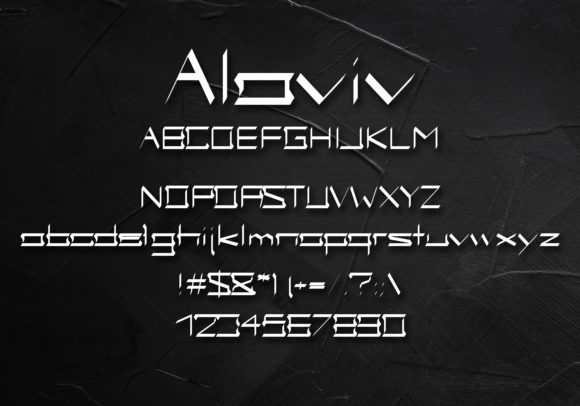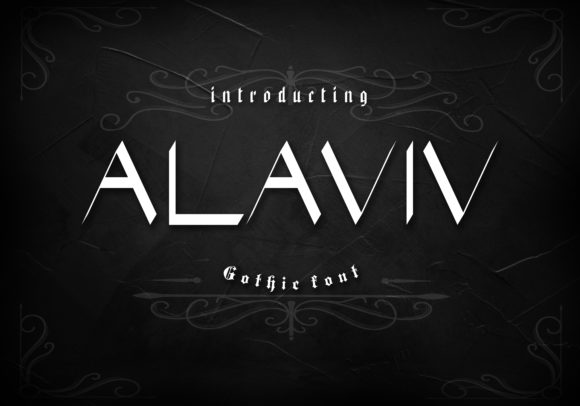
Introducing Alaviv Font: Elevate Your Designs with a Modern, Elegant Twist
In the realm of typography, fonts play a pivotal role in defining the aesthetic and tone of any design project. Whether you’re working on a branding campaign, crafting a unique logo, or simply experimenting with creative typography, selecting the right font can make all the difference. This is where Alaviv Font comes into play—a modern, all-caps display font designed to infuse contemporary elegance into your designs.
What is Alaviv Font?
Alaviv is a thoughtfully crafted, all-caps display font tailored to meet the demands of modern design styles and applications. Its sleek lines, balanced proportions, and clean aesthetic make it an ideal choice for designers looking to impart a sense of sophistication and modernity to their work. The font’s versatility allows it to be used across various platforms, from digital interfaces to print materials, ensuring that your design maintains its elegance and coherence across different mediums.
Key Features of Alaviv Font
- Modern Aesthetic: Alaviv boasts a contemporary look that aligns with current design trends, making it perfect for projects that require a fresh and modern feel.
- All-Caps Design: The font’s all-caps design lends a sense of grandeur and formality, ideal for headings, titles, and any design element where you want to command attention.
- Elegant and Sophisticated: With its clean lines and well-balanced structure, Alaviv exudes elegance, making it suitable for luxury brands, high-end products, and sophisticated design projects.
- Versatile: Whether you’re designing for digital screens or print, Alaviv’s clarity and readability ensure it performs well across various applications.
Who Can Benefit from Alaviv Font?
Alaviv Font is a valuable asset for a wide range of designers and crafters, including:
- Graphic Designers: Looking for a modern, impactful font to feature in branding, advertising, and promotional materials.
- UI/UX Designers: Seeking typography that offers both aesthetic appeal and functional clarity for websites, apps, and digital interfaces.
- Logotype and Branding Specialists: In need of distinctive, memorable fonts that can help establish a strong brand identity.
- Crafters and Makers: Creating unique products, packaging, or merchandise that requires a touch of modern elegance.
How to Use Alaviv Font Effectively
To truly leverage the potential of Alaviv Font, consider the following tips:
- Pair with Complementary Fonts: Combine Alaviv with simpler, serif or sans-serif fonts for body text to create visual hierarchy and contrast.
- Experiment with Colors: While Alaviv looks stunning in bold colors, don’t hesitate to experiment with subtle gradients or metallic effects to enhance its modern appeal.
- Adjust Letter Spacing: For optimal readability, especially in longer titles or headings, tweak the letter spacing to find the perfect balance.
Alaviv Font stands out as a versatile and elegant typeface, capable of elevating a wide array of design projects with its modern aesthetic. Its suitability for various applications, combined with its unique character, makes it a valuable addition to any designer’s toolkit. Whether you’re aiming to make a bold statement or simply add a touch of sophistication to your work, Alaviv Font is poised to become your go-to choice for all-caps display typography.
Embrace the modern elegance of Alaviv Font in your next design venture and discover the impact that high-quality typography can have on your creative projects.